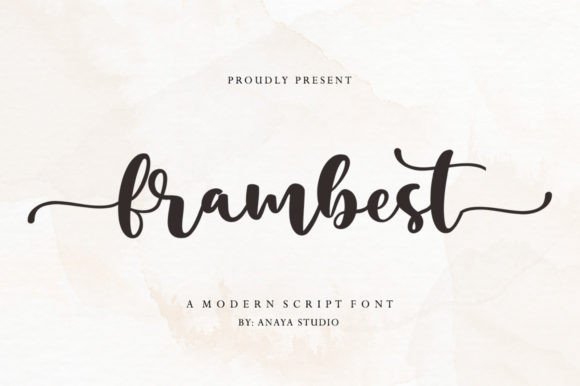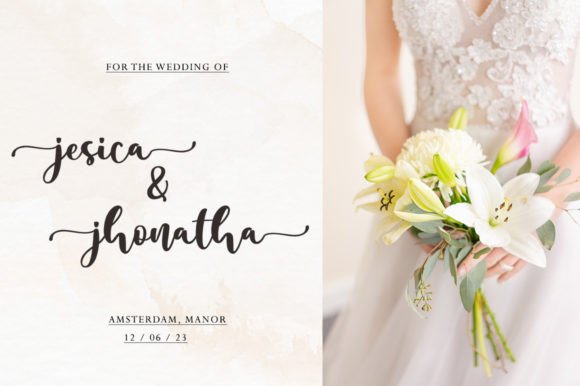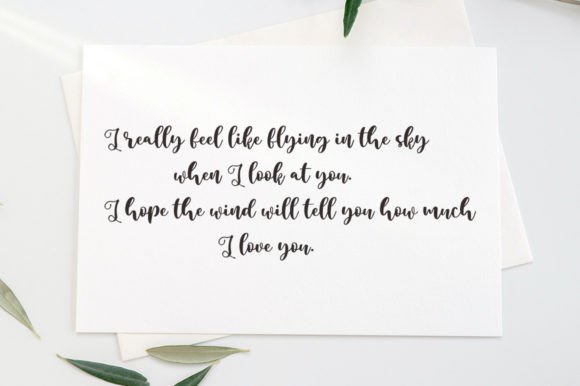
Frambest
About Frambest
Frambest latest style letters are perfect for wall displays, wedding invitations, social media post logos, advertisements, product packaging, product designs, labels, photography, watermarks, invitations, stationery, and any project that requires handwritten taste.